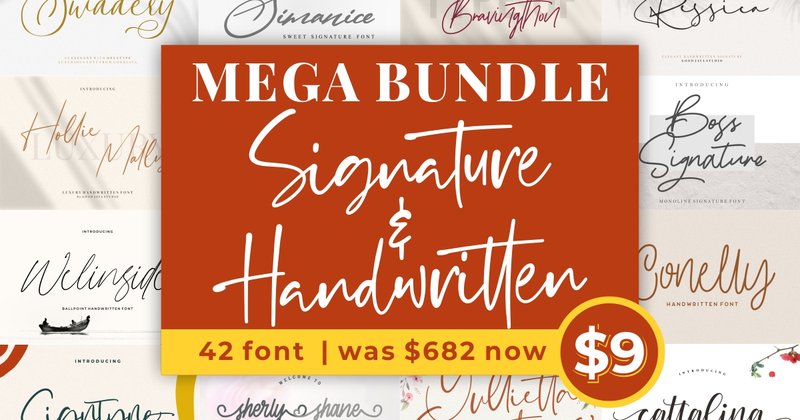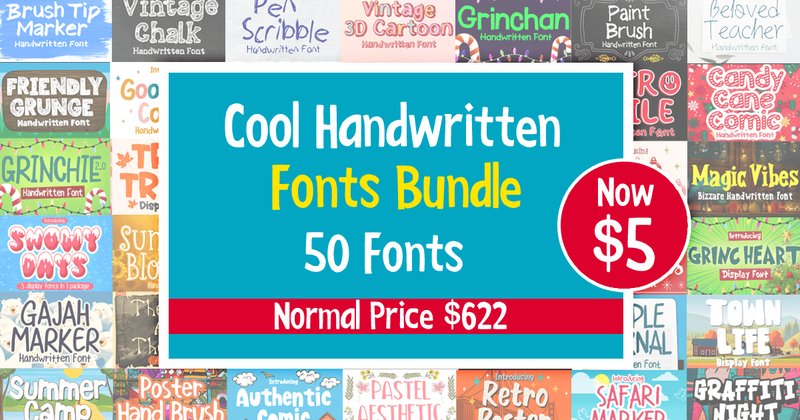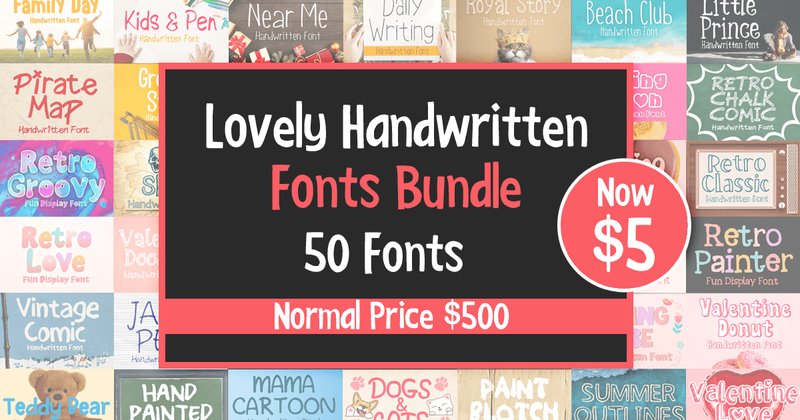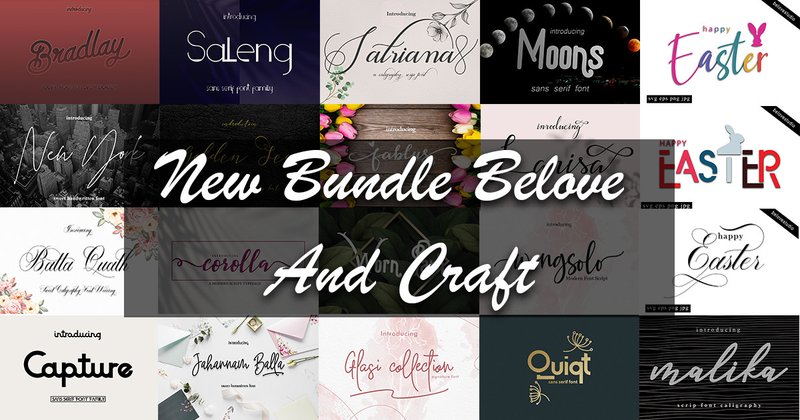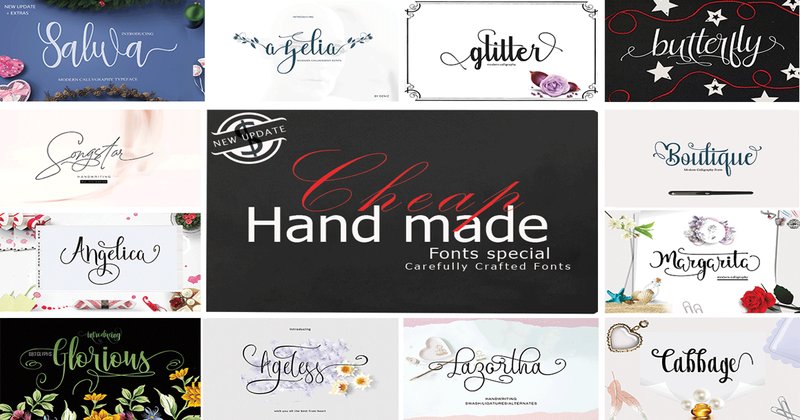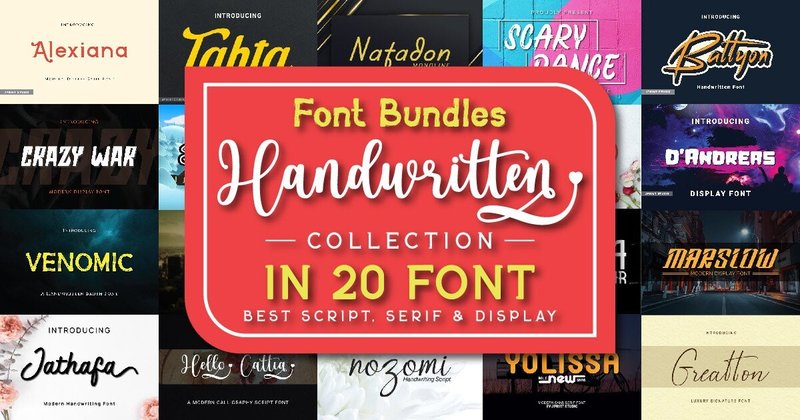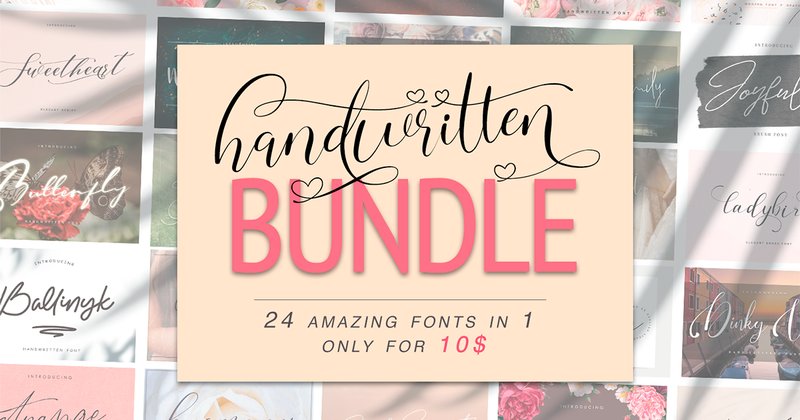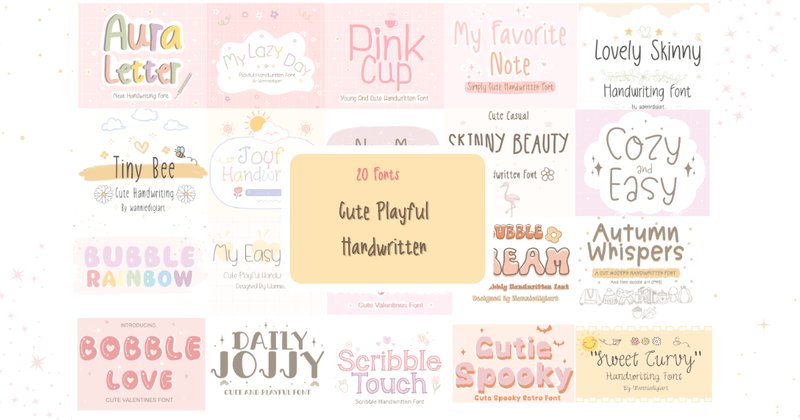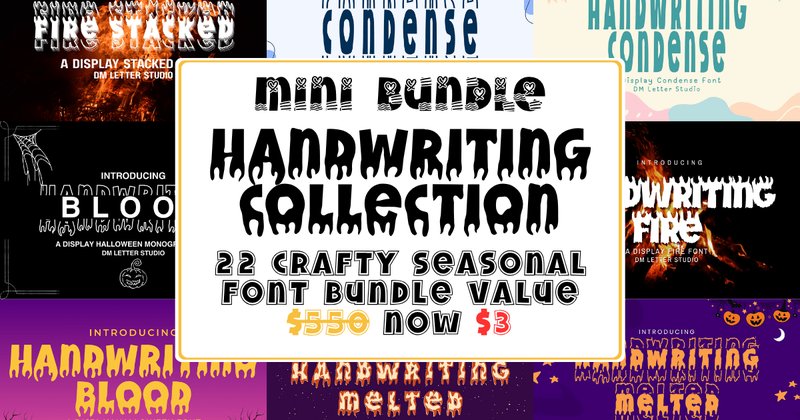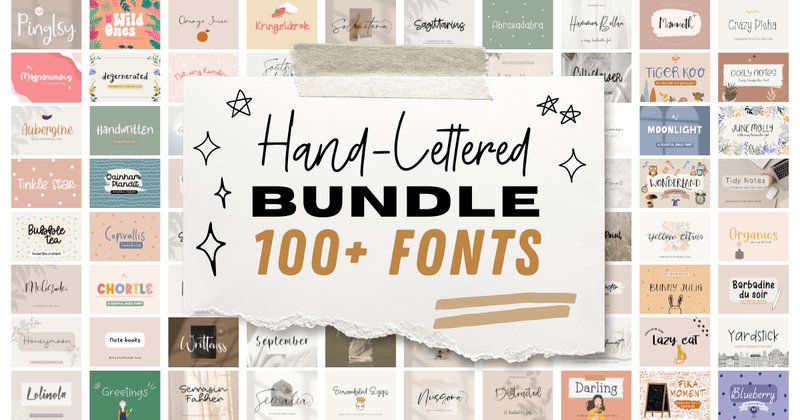
In the design landscape of 2026, the demand for authenticity and a personal touch is higher than ever. Designers and DIY crafters alike are seeking ways to break free from sterile digital aesthetics. Handwritten fonts are the perfect solution, infusing projects with warmth, character, and a unique human element. Ideal for branding, social media, wedding stationery, or custom craft projects, these fonts make a statement. We’ve curated a list of the 21 most popular and versatile handwritten font bundles on the market today, giving you the ultimate toolkit to make your creative visions a reality.
1. Mega Script & Handwritten Fonts Bundle (by goodjavastudio)
Mega Script & Handwritten Fonts Bundle (by goodjavastudio) moves beyond the cold, impersonal feel of standard typography, offering a vast toolkit of authentic human expression. This collection is a celebration of personality, featuring 42 distinct fonts that feel as if they were penned by hand moments before you used them. With everything from breezy, casual scripts to elegant, flowing signatures, this bundle provides the perfect flourish of bespoke charm, ensuring your designs feel both intimate and professionally crafted.
- Includes 42 premium script and handwritten fonts
- A diverse range of styles from casual brush strokes to elegant signatures
- Each font is designed to feel natural and authentically handcrafted
- Elegant branding and signature-style logos
- Wedding invitations, custom stationery, and greeting cards
- Stylish social media quotes and post overlays
- Product packaging and labels that need a personal, high-end feel
2. Cool Handwritten Fonts Bundle (by MVMET)
Cool Handwritten Fonts Bundle (by MVMET) delivers a wave of authentic, casual charm right to your design toolkit. This massive collection radiates approachability, packing 50 distinct fonts that range from playful scripts to clean, simple print styles. It’s a masterclass in versatility, providing a warm, handcrafted feel that makes any project feel personal and instantly engaging, perfectly aligning with fresh design trends that favor genuine, human-centric aesthetics.
- A sprawling collection of 50 unique handwritten fonts.
- Features a wide spectrum of styles, including playful scripts, charming print, and casual sans-serifs.
- Each typeface is imbued with a warm, authentic, and approachable character.
- Crafting personable branding and logos that feel genuine and handmade.
- Designing charming merchandise, including t-shirts, posters, and stickers.
- Adding a warm, casual touch to social media graphics, greeting cards, and invitations.
- Creating delightful layouts for children’s books and educational materials.
3. Lovely Handwritten Fonts Bundle (by MVMET)
Lovely Handwritten Fonts Bundle (by MVMET) If you are looking for an expansive toolkit that infuses your projects with effortless charm and personal warmth, this collection is an absolute must-have. Boasting a staggering 50 unique typefaces, this bundle provides a complete spectrum of handwritten styles, from delicate, flowing scripts perfect for elegant branding to quirky, casual lettering ideal for modern social media posts. It’s a treasure trove of typographic personality, equipping designers with a fresh and authentic font for any project that needs to feel human, approachable, and beautifully crafted.
- A massive collection of 50 distinct handwritten fonts in one bundle.
- Diverse stylistic range, covering everything from elegant scripts to quirky, casual lettering.
- High-quality letterforms that maintain a natural, authentic, and handcrafted feel.
- Creating heartfelt branding for boutique businesses, artisans, and photographers.
- Designing charming social media graphics, quotes, and digital announcements.
- Crafting elegant wedding invitations, stationery, and event signage.
- Adding a personal touch to product packaging, labels, and greeting cards.
4. Signature & Handwritten Fonts Bundle (by Belovestudio)
Signature & Handwritten Fonts Bundle (by Belovestudio) Photographers and brand strategists seeking an authentic, personal touch for their client work should look no further. This bundle from Belovestudio delivers a beautifully curated library of 39 fonts that master the art of the handwritten aesthetic. Moving beyond stiff, generic scripts, these typefaces feel genuinely human, offering everything from quick, energetic signatures to flowing, romantic lettering. It’s a versatile and incredibly valuable toolkit for infusing projects with warmth, elegance, and individuality.
- A massive collection of 39 distinct signature and handwritten fonts.
- Each typeface is designed with a natural, organic flow for an authentic feel.
- Includes a diverse range of styles, from casual and quick to formal and elegant.
- Creating sophisticated logos and watermarks with a signature look.
- Designing elegant wedding invitations, stationery, and place cards.
- Adding a personal, handcrafted feel to social media graphics and quotes.
- Boutique product packaging and high-end branding projects.